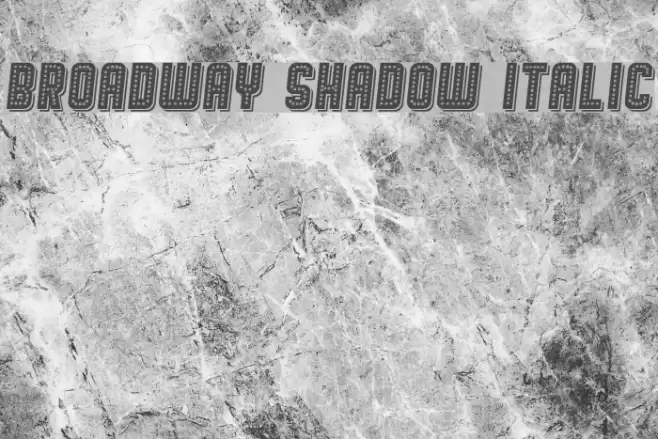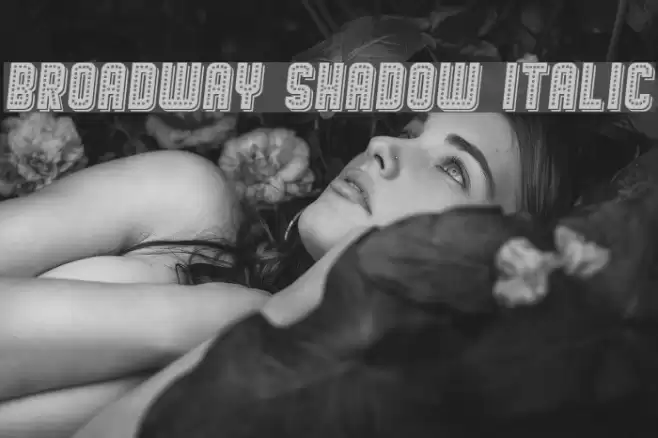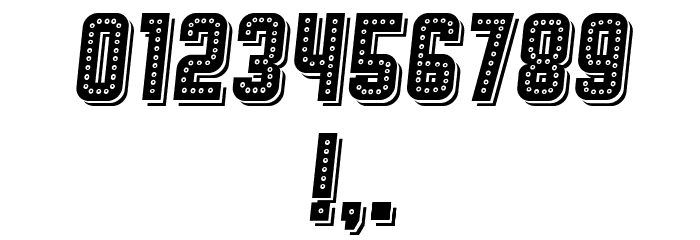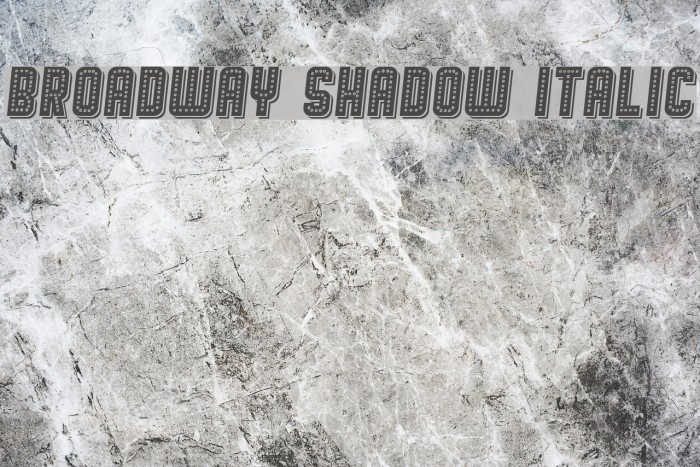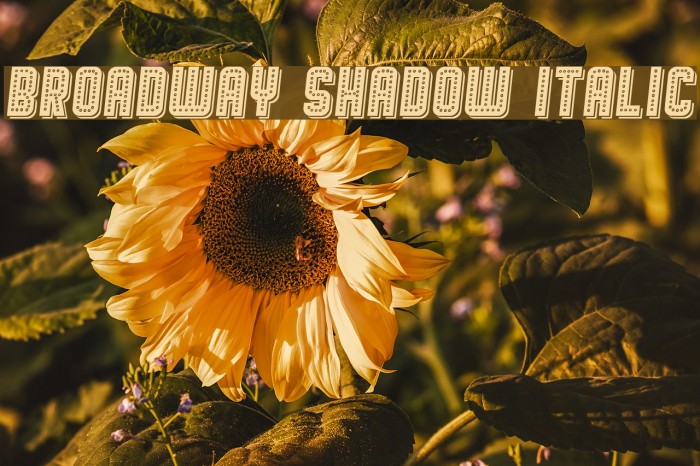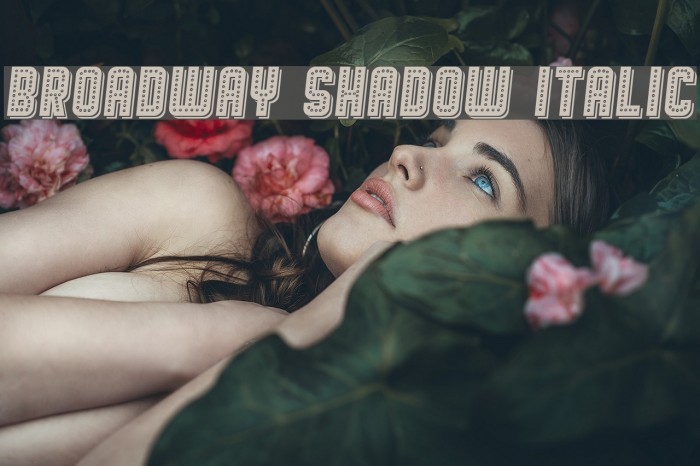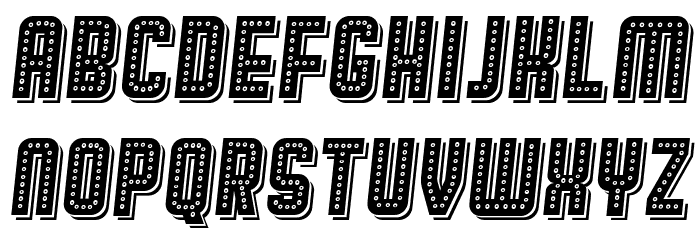
Broadway Shadow Italic Font
Broadway Shadow Italic Description
This font features a bold, decorative style with a shadow effect that gives it a three-dimensional appearance. The characters are outlined and filled with a pattern of dots, adding a playful and eye-catching element. The italic slant adds a dynamic feel, making it suitable for attention-grabbing designs. The uppercase and lowercase letters maintain a consistent style, while the numbers and special characters complement the overall aesthetic. This font is ideal for projects that require a vintage or theatrical flair, reminiscent of classic marquee signs.
A bold, decorative font with a dotted shadow effect and italic slant from Uncategorized fonts.
- Proposed Projects: Ideal for theater posters, vintage-themed designs, signage, and event invitations.
- Overall Style: Vintage